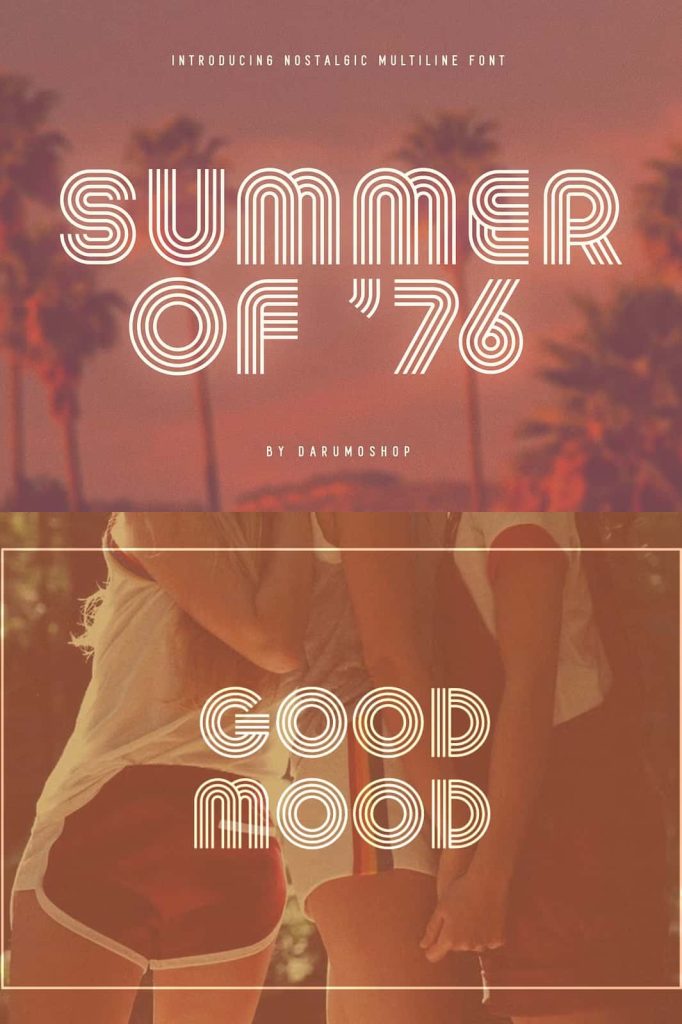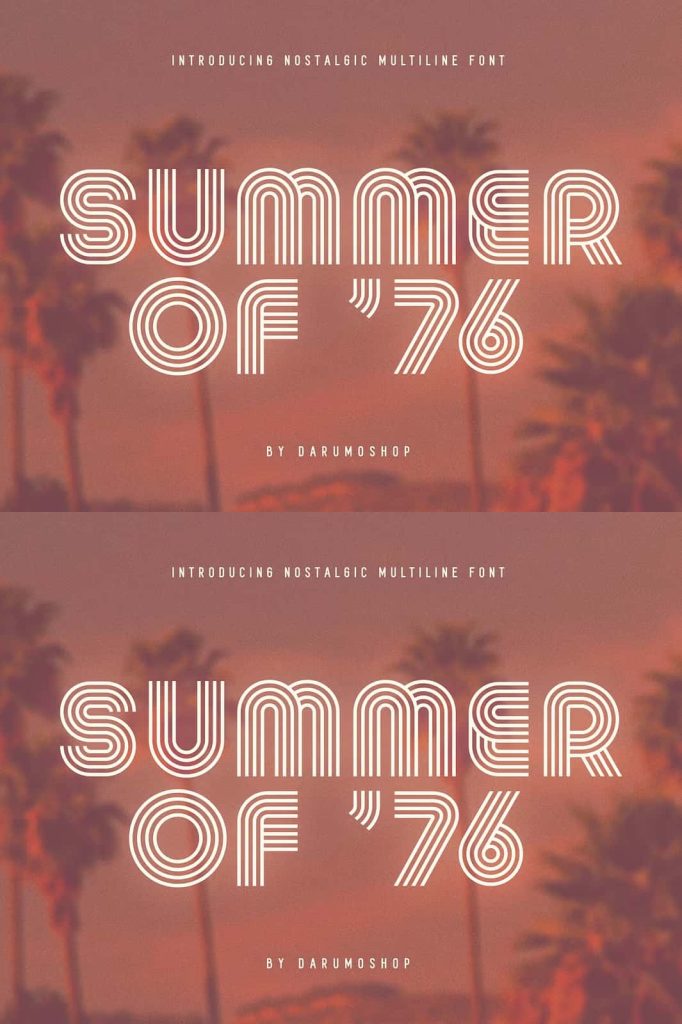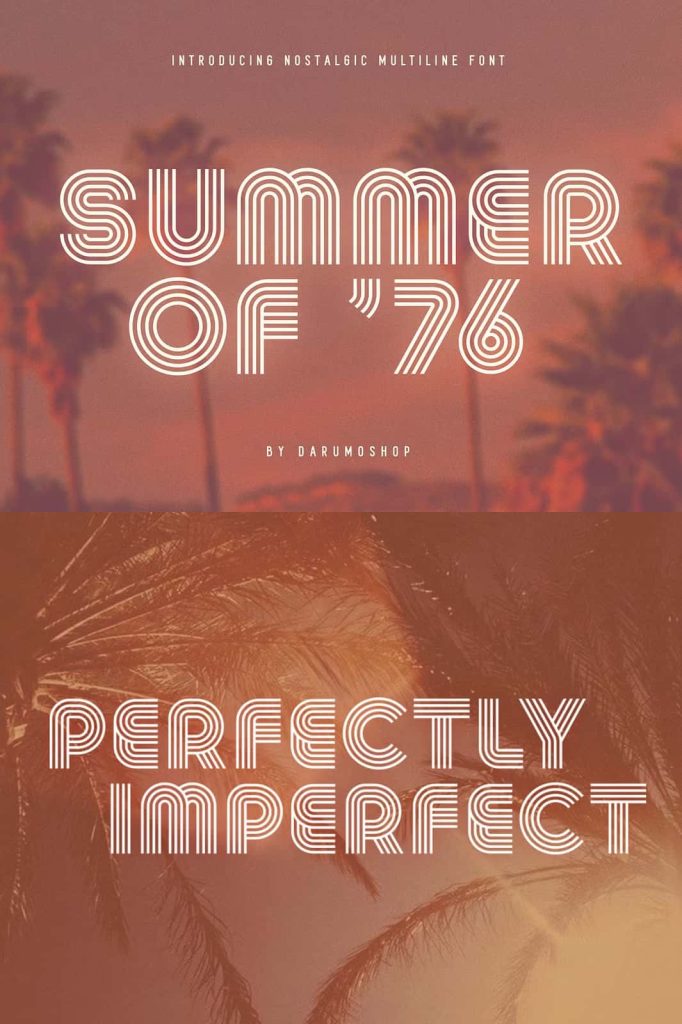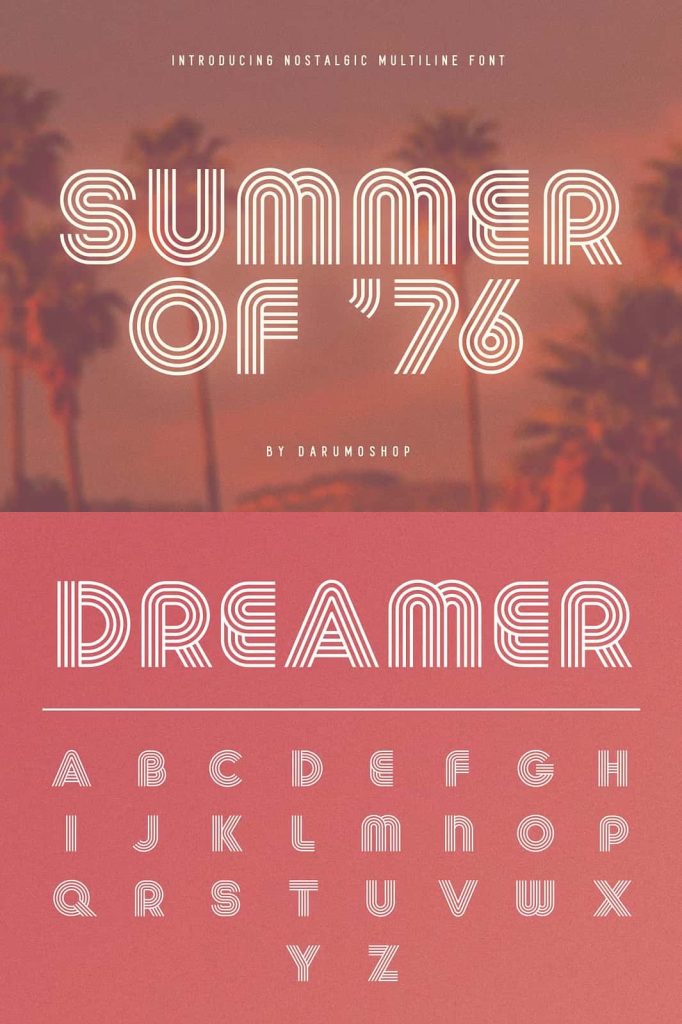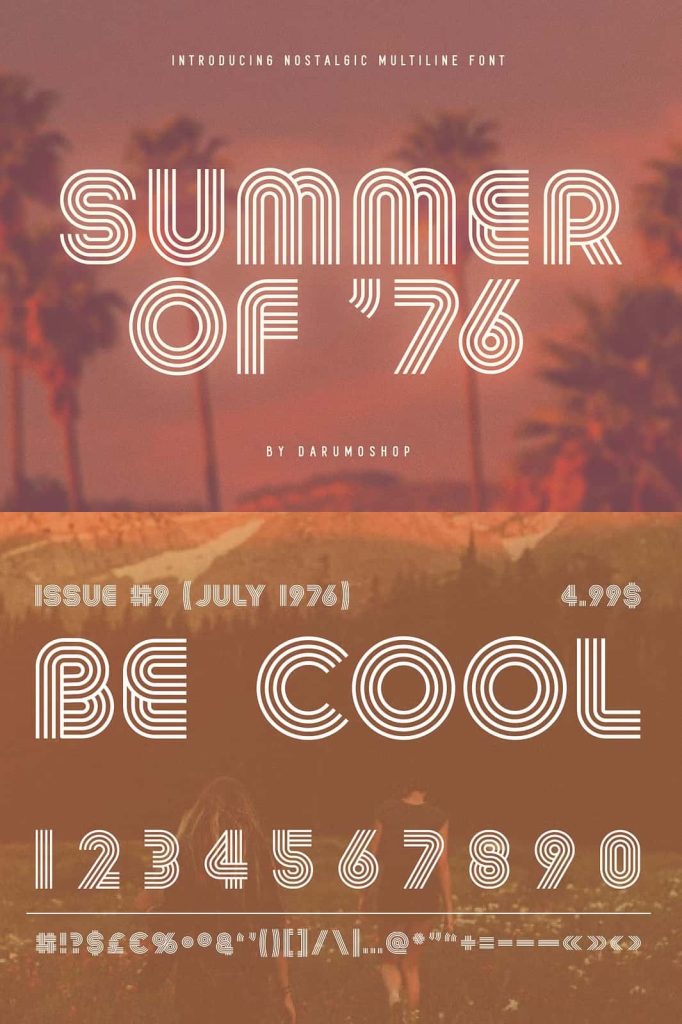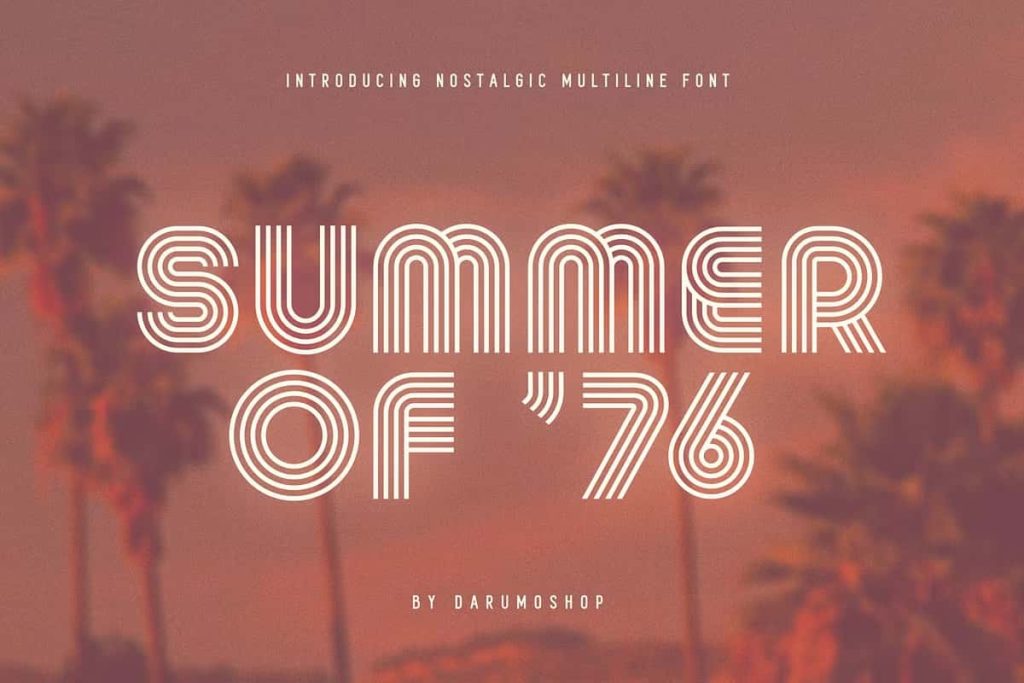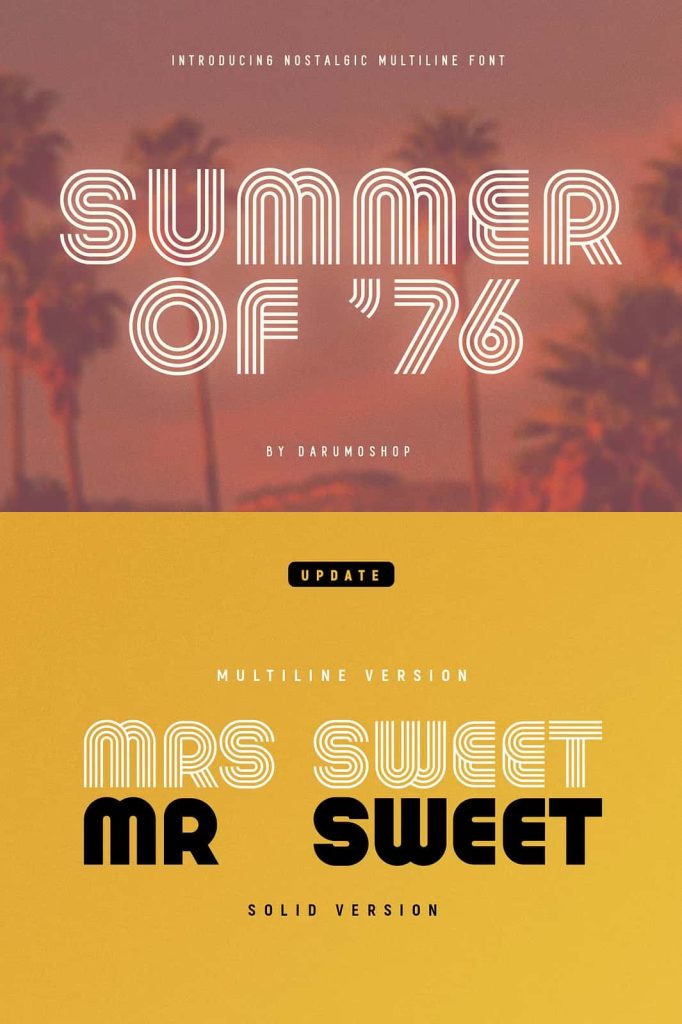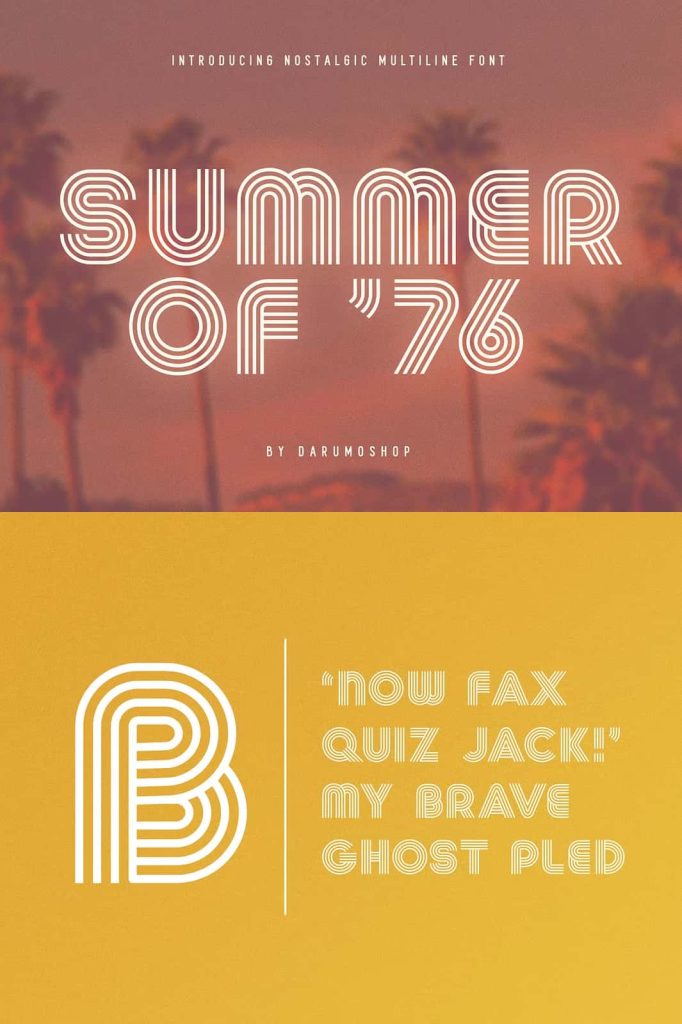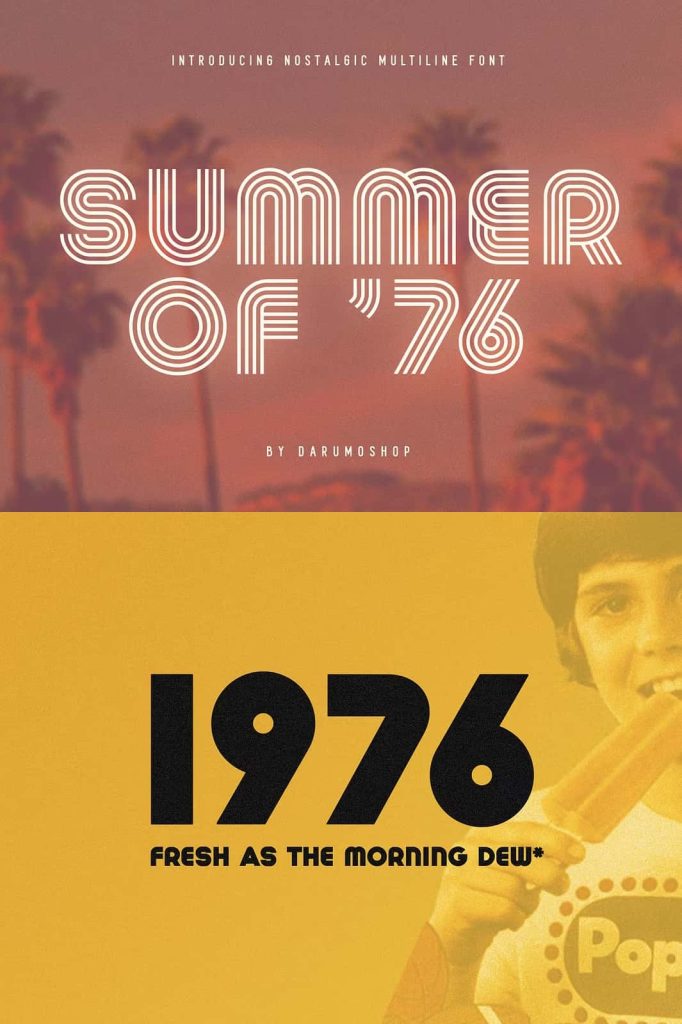
Summer of ’76 Retro Font: A Nostalgic Tribute to 1970s Design
Summer of ’76 is a multi-line retro font that captures the vibrant spirit and unmistakable style of the 1970s. Designed to reflect a bold and expressive era, this typeface brings nostalgic energy into modern creative projects. It does not simply mimic vintage trends—it actively revives them with precision and personality. Every letter carries the warmth, rhythm, and visual charm that defined one of the most iconic design decades.
This font allows designers to recreate the look and feel of retro graphics while maintaining flexibility for contemporary use. Whether you aim to build a striking headline or develop a cohesive visual identity, Summer of ’76 delivers a powerful aesthetic that stands out immediately. Its layered line structure adds depth and dimension, giving your designs a distinctive and memorable appearance.
Inspired by the Bold Aesthetic of the 1970s
Summer of ’76 draws direct inspiration from the design language of the 1970s, a time known for its experimental typography and vibrant visual culture. The font reflects the playful curves, layered forms, and bold compositions that dominated posters, advertisements, and album covers during that era. It embraces the retro spirit while refining it for modern design standards.
The multi-line structure enhances the nostalgic feel by creating a sense of movement and rhythm within each character. This feature makes the font visually engaging and ideal for designs that aim to capture attention quickly. Designers can use this layered effect to add depth without relying on additional graphic elements, making the font both efficient and impactful.
Designed for Headers and Beyond
Summer of ’76 excels in header design, where bold typography plays a crucial role in capturing attention. Its striking appearance ensures that titles and headlines stand out, making it an excellent choice for posters, banners, and promotional materials. The font’s retro charm immediately communicates a sense of style and creativity, drawing viewers into the content.
While it shines in large formats, Summer of ’76 also adapts well to text blocks. Its carefully balanced structure maintains readability even when used in smaller sizes. This versatility allows designers to use the font across different elements of a project, creating a consistent and cohesive visual identity.
A Perfect Choice for Retro-Themed Projects
Designers looking to create a vintage-inspired aesthetic will find Summer of ’76 to be an ideal solution. It works particularly well for projects that aim to evoke nostalgia, such as retro branding, themed events, and creative campaigns. The font adds authenticity and character, helping designs feel more immersive and engaging.
Its expressive style also makes it suitable for digital content, including social media graphics and website headers. By incorporating Summer of ’76, designers can create visuals that stand out in crowded digital spaces while maintaining a strong and recognizable identity.
Created for a Unique Design Collection
Summer of ’76 was originally developed as part of the “Hot Summer of 1976” vector graphic pack. This context highlights its strong connection to a specific design theme and era. However, the font extends far beyond its original purpose. Designers can use it independently to bring retro flair into a wide range of creative projects.
Its ability to function both as part of a larger design system and as a standalone typeface makes it highly adaptable. Whether paired with other retro elements or used on its own, Summer of ’76 consistently delivers a cohesive and visually appealing result.
Bring Vintage Energy to Modern Designs
Summer of ’76 empowers designers to infuse their work with the energy and creativity of the 1970s. Its multi-line structure, bold forms, and nostalgic influence create a strong visual impact that resonates with audiences. By choosing this font, designers can transform ordinary layouts into dynamic compositions that feel both timeless and fresh.
This typeface goes beyond decoration—it actively enhances storytelling and visual communication. With its retro roots and modern adaptability, Summer of ’76 becomes a valuable tool for anyone seeking to create designs that leave a lasting impression. It invites you to explore the past while shaping the future of your creative work.